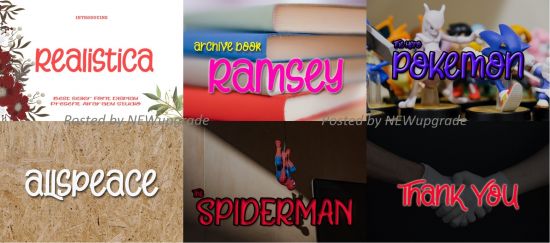
Realistica is a sweet, round-lettered handwritten font. Carefully designed to become a true favorite, Realistica is the right match for a variety of contexts.